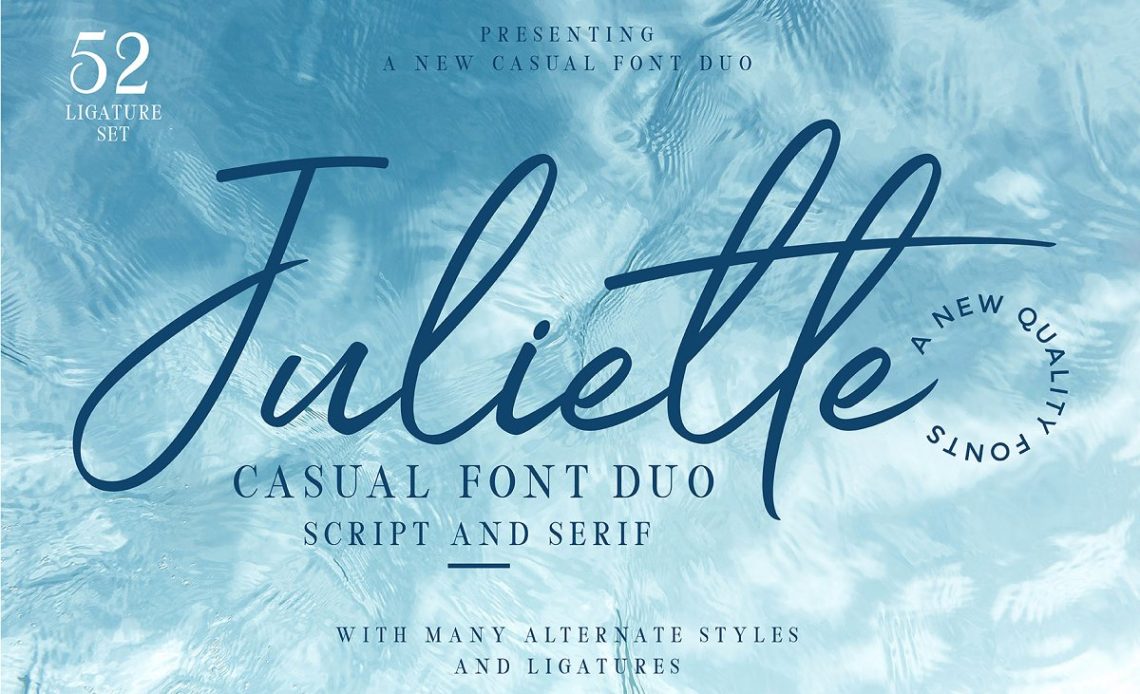
Introducing the Juliette Font Duo (INTRO SALE) - a captivating collection of fonts that will elevate your design projects to new heights! Created by Ngene Std, this script font family offers a unique blend of elegance and casualness, making it perfect for various occasions.
With its extra ligatures, swashes, and countless variations, Juliette Font Duo provides endless possibilities for personal branding. Whether you're a photographer looking to add a touch of sophistication to your watermark or a fashion designer seeking a stylish logo, this collection has got you covered.
But that's not all! Juliette Font Duo goes beyond personal branding. Its versatility makes it a valuable asset for a wide range of applications. Imagine the impact it could have on your wedding invitations, advertising materials, or even book covers. The possibilities are truly limitless.
What sets Juliette Font Duo apart is its ability to perfectly complement different aesthetics. Whether you're in the cosmetics industry, label design, signage, or packaging, these fonts will seamlessly blend in and enhance your creations. Their signature-style logo potential is also unmatched, adding a touch of elegance to any brand.
But don't just take our word for it. Try it out and see the magic for yourself! The Juliette Font Duo is specifically designed to capture attention and evoke emotions. Its expressive nature will captivate your audience and leave a lasting impression.